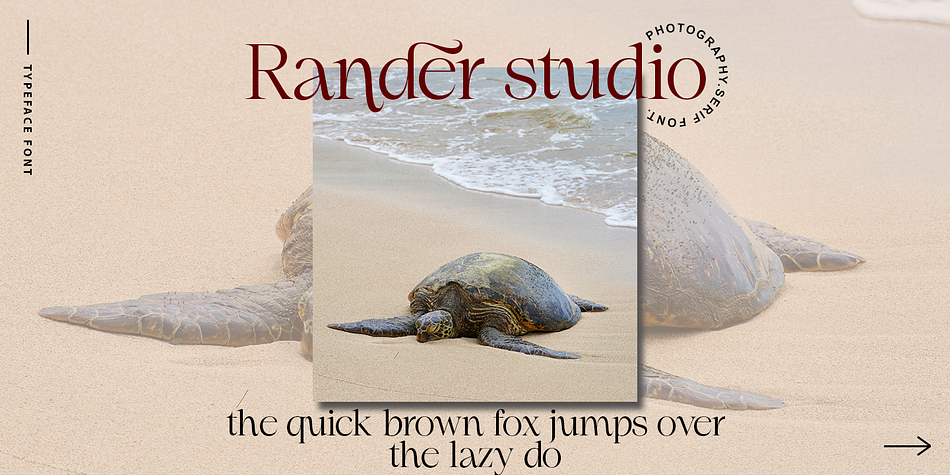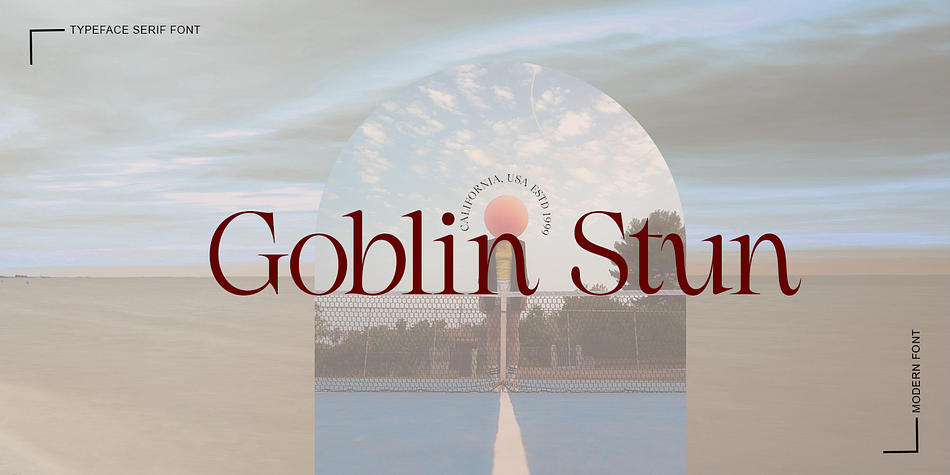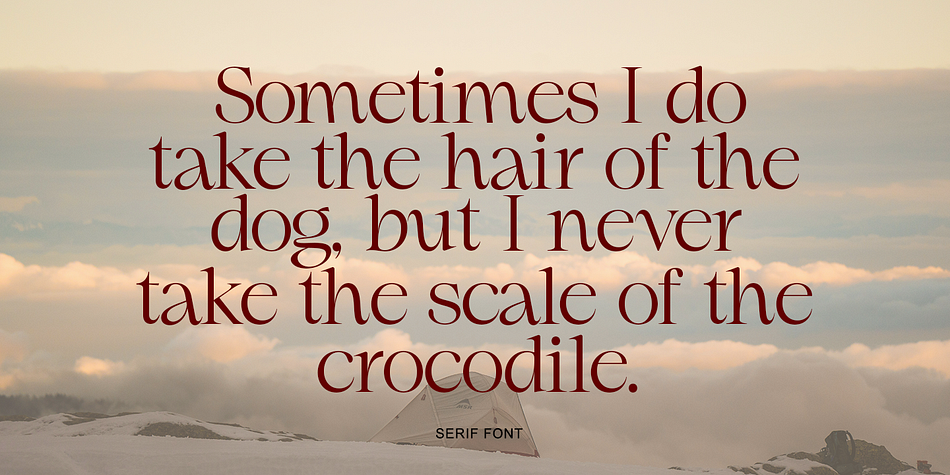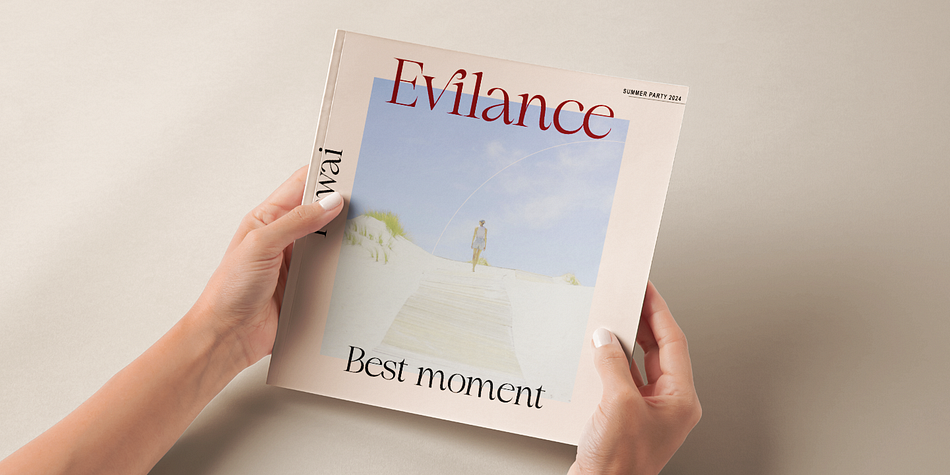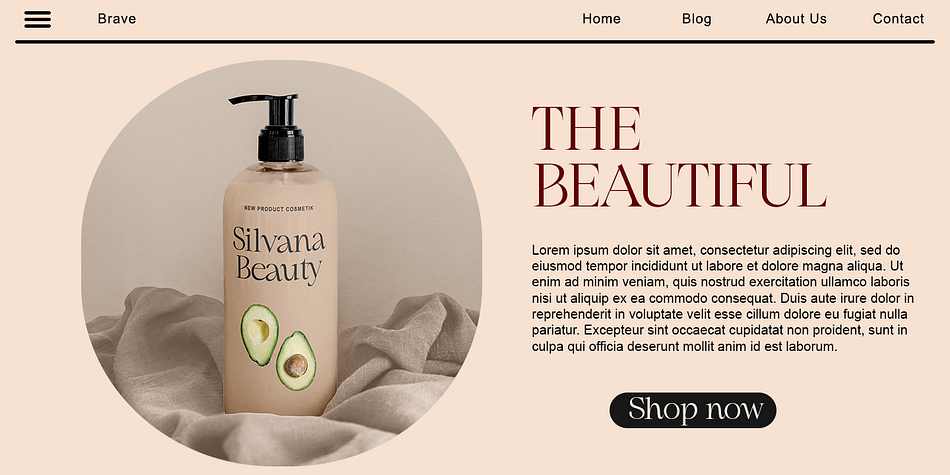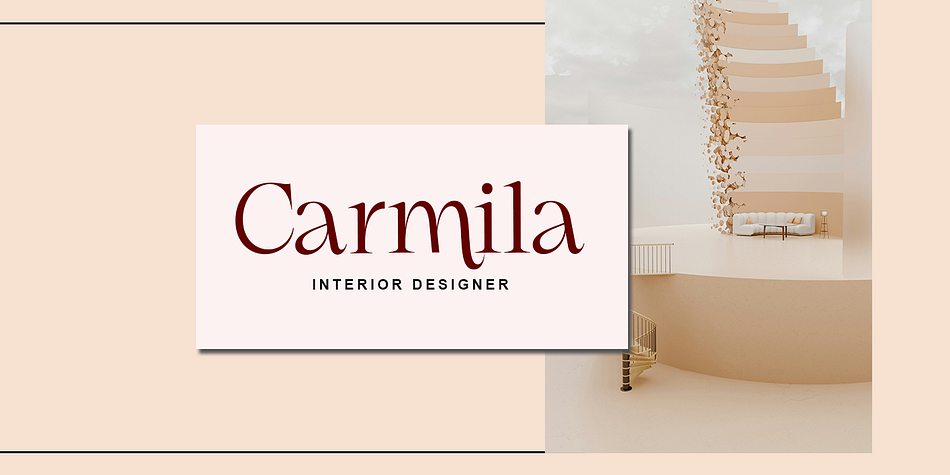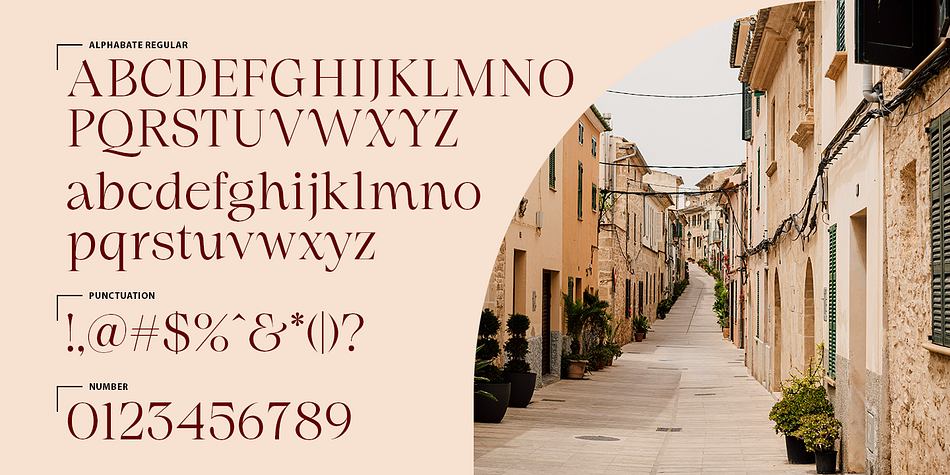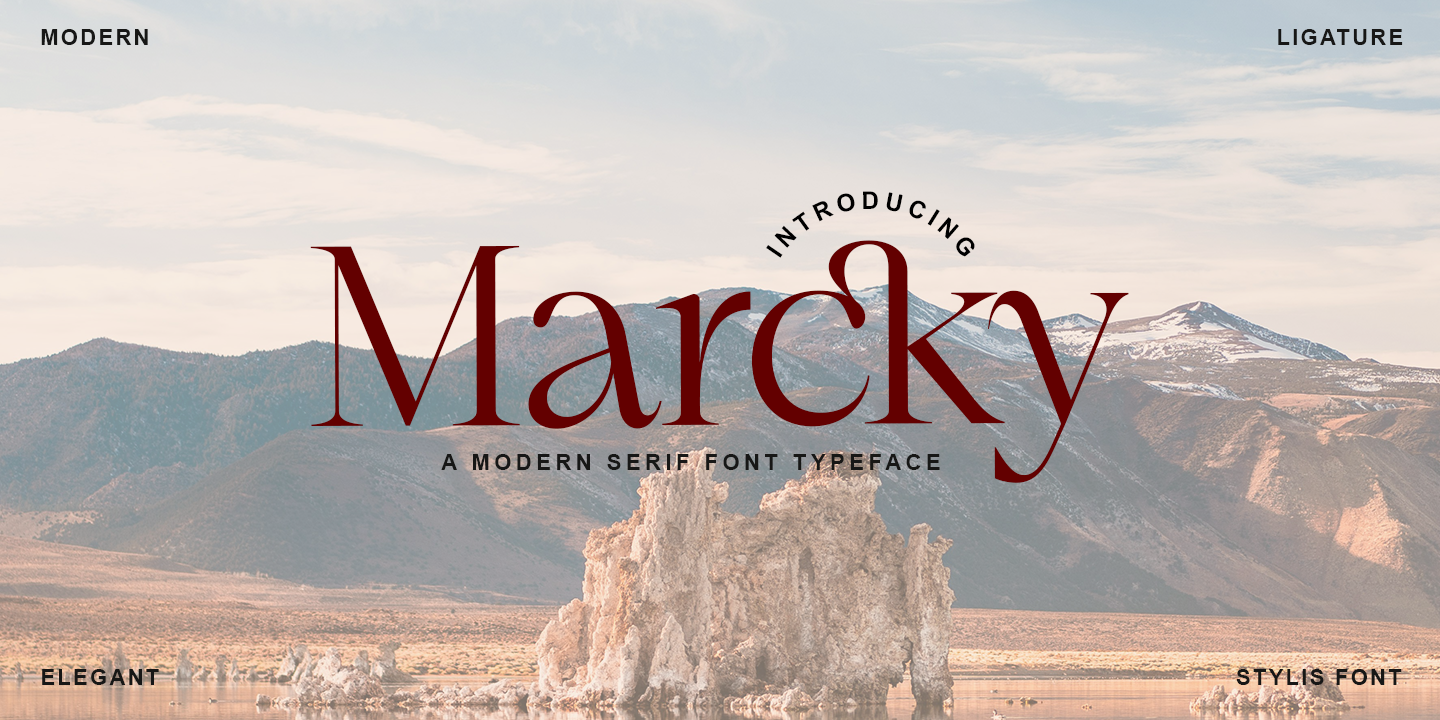
Marcky
Marcky is a serif font family published by Gatype.
Marcky is a font with a playful and casual handwritten appearance. Its characters look like they were written freely and relaxed, giving an informal and friendly feel. This font features uneven line thickness and slightly tilted letter shapes, creating a dynamic and lively impression.
Marcky is perfect for designs that require a personal and creative touch, such as invitations, greeting cards, posters, or projects.